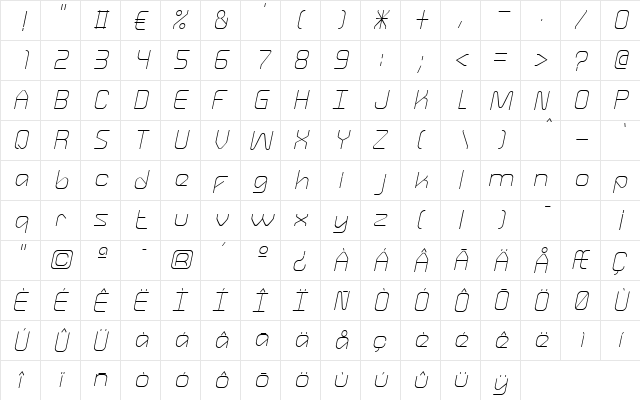
Canaletto Thin
Design Context for Canaletto Typeface
Canaletto offers clean, dependable letterforms without strong stylistic allegiance, making it a practical choice for designers who need flexibility. Its slender proportions lend an understated elegance to any composition.
Pro Tip: Pair Canaletto with a font of contrasting weight or personality to build a more expressive typographic hierarchy.